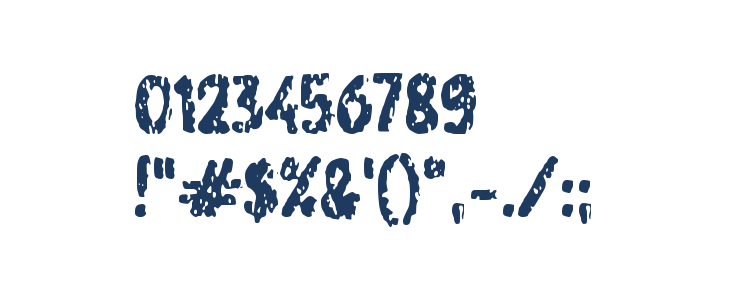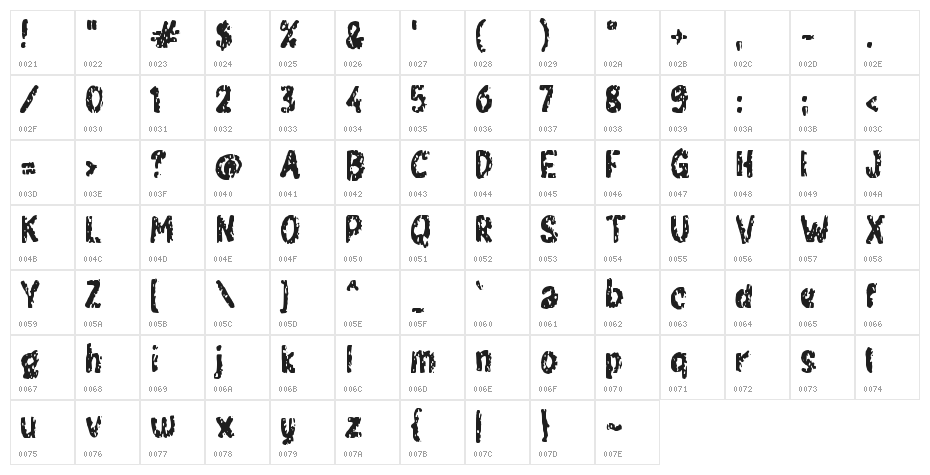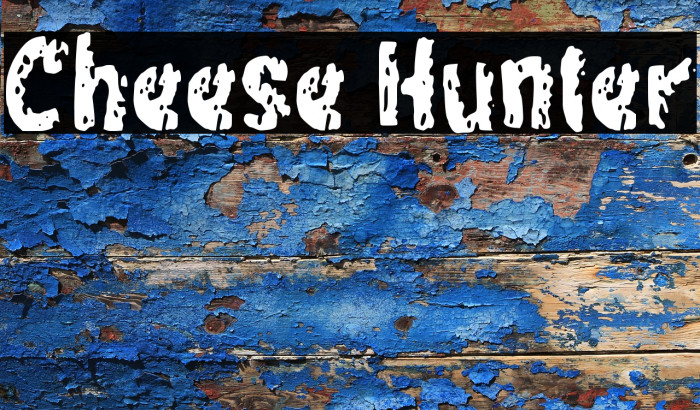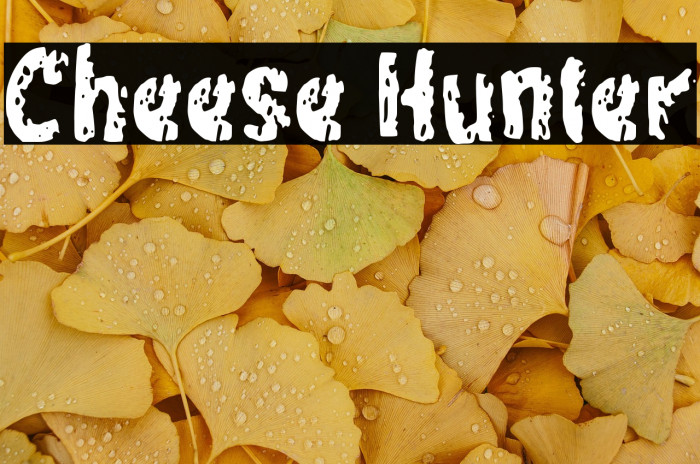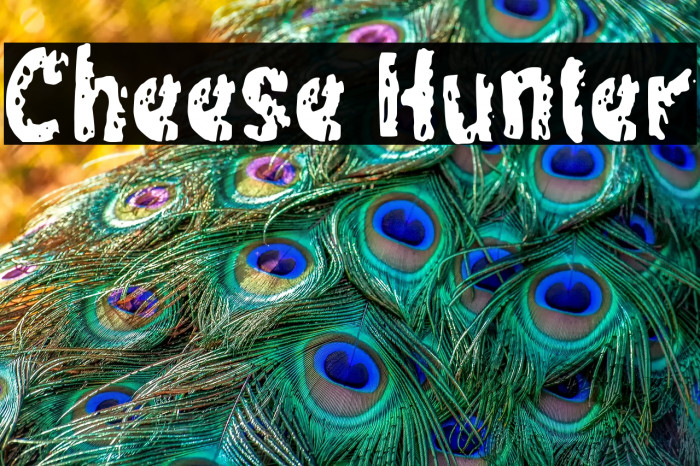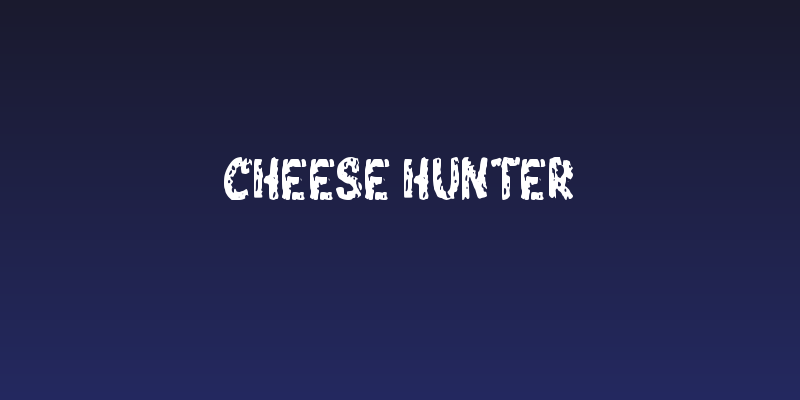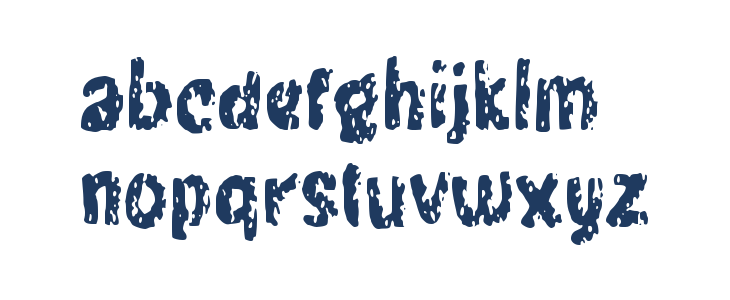
Cheese Hunter Font
Cheese Hunter Description
This font features a playful and whimsical design, characterized by its irregular, hole-filled appearance reminiscent of Swiss cheese. The letters are bold and chunky, with uneven edges and varying thicknesses that give it a unique, textured look. The uppercase and lowercase letters maintain a consistent style, while the numbers and special characters follow the same playful theme. This font's distinct style makes it stand out, perfect for projects that require a fun and eye-catching typeface.
| Use Case | Logos, Headlines, Posters |
| Proposed Projects | Ideal for children's books, playful branding, food-related designs, and party invitations. |